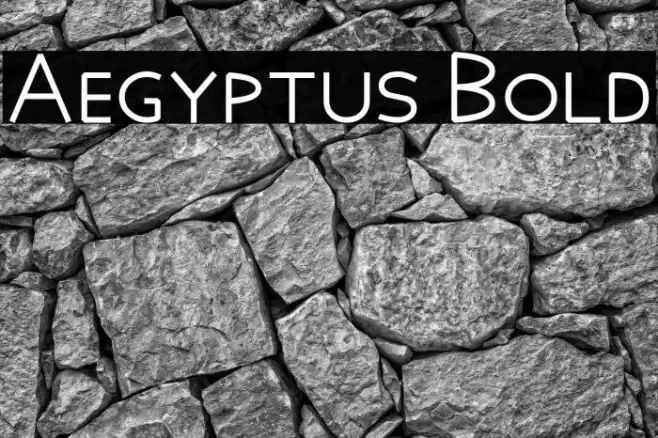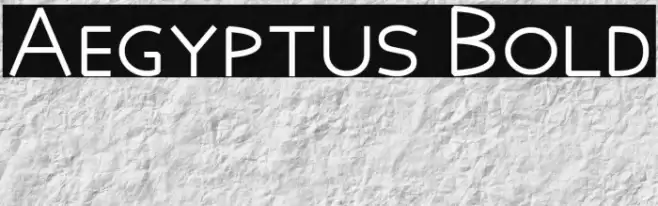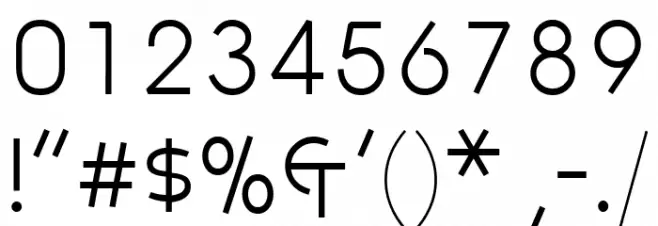
Aegyptus Bold Font
Aegyptus Bold Description
This font features a clean and modern sans-serif design with a bold weight that provides a strong visual impact. The characters are evenly spaced, offering a balanced and harmonious appearance. The uppercase and lowercase letters maintain a consistent style, with smooth curves and straight lines that enhance readability. The numerals are clear and distinct, making them suitable for various applications. Special characters are well-defined, adding versatility to the font's usage. Overall, the font's simplicity and clarity make it an excellent choice for contemporary design projects.
A bold, modern sans-serif font with clean lines and balanced spacing from Uncategorized fonts.
- Proposed Projects: Ideal for branding, advertising, headlines, and digital media projects.
- Use Case: Headlines, Logos, Digital media